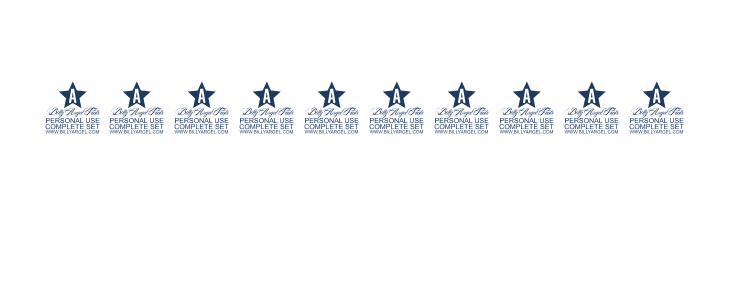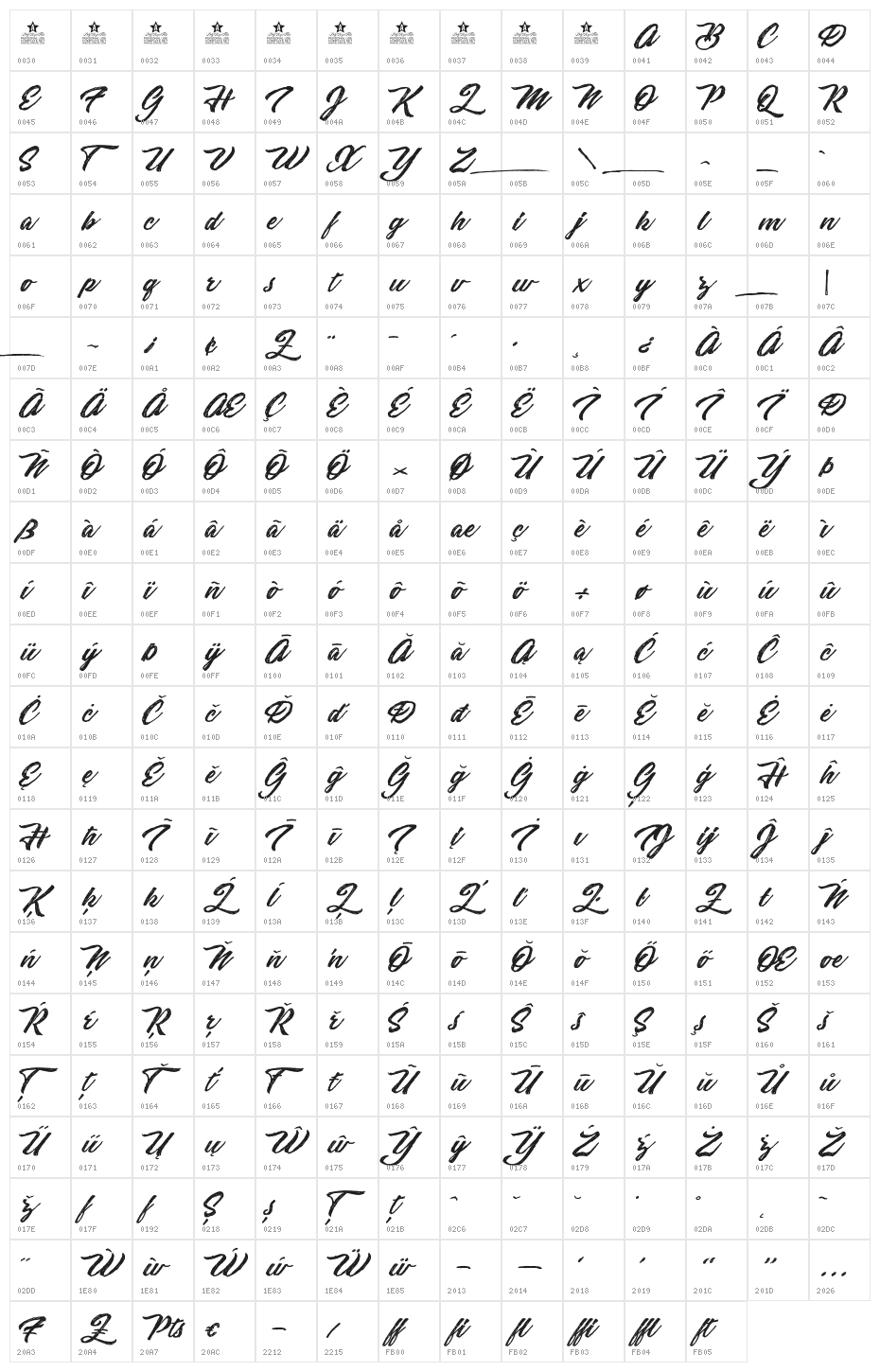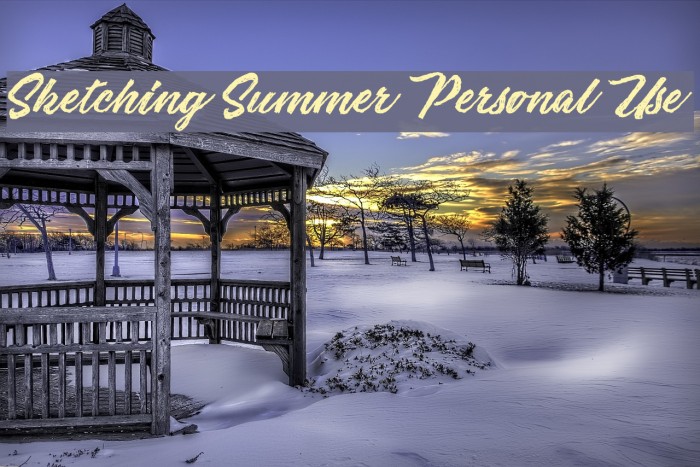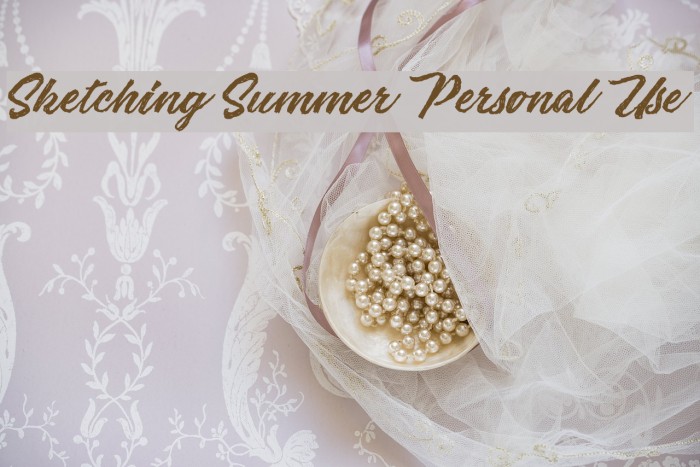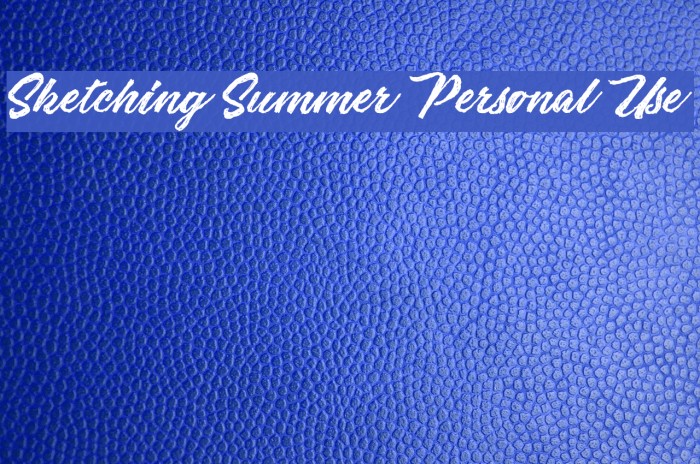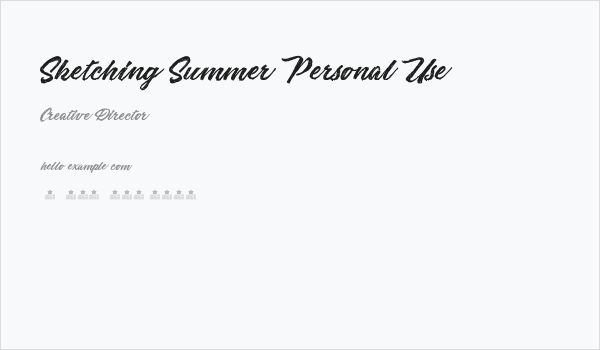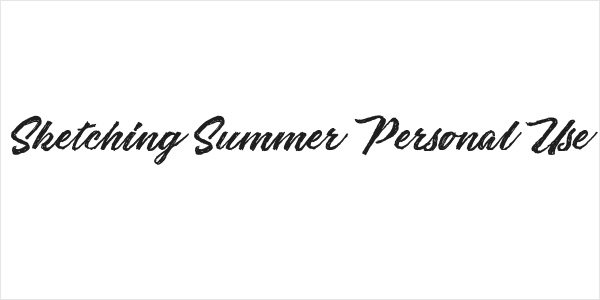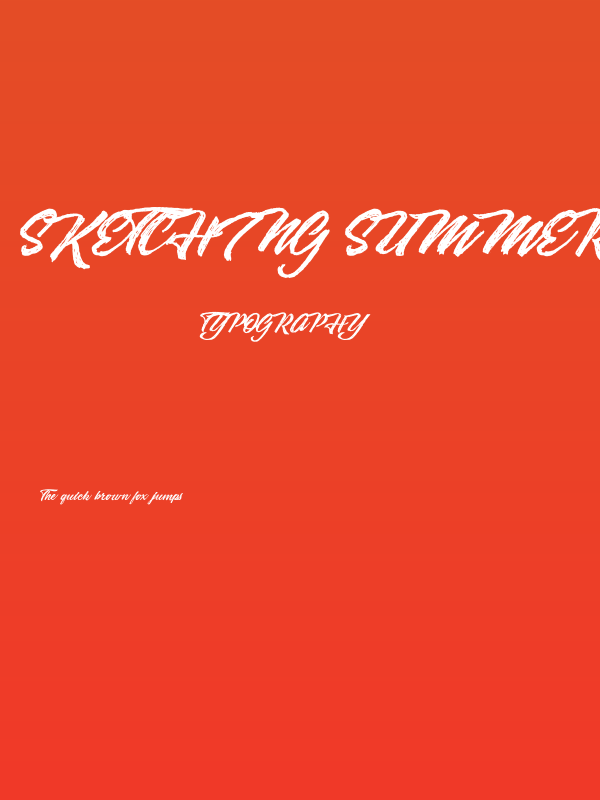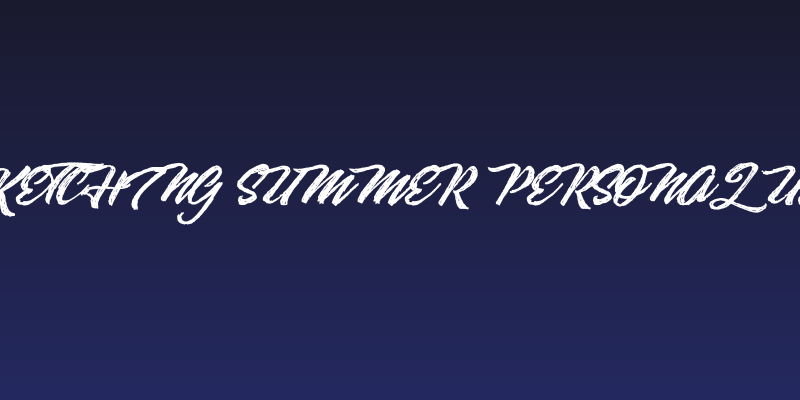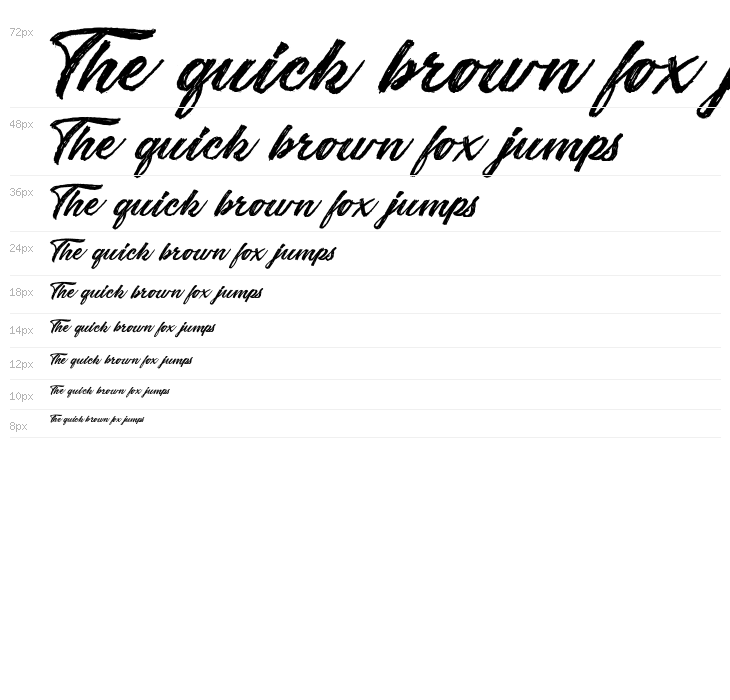
Sketching Summer Personal Use Font
Sketching Summer Personal Use Description
This font features a dynamic and expressive script style, characterized by its bold and fluid strokes. The letters are interconnected, creating a sense of movement and flow. The uppercase letters are particularly striking, with dramatic flourishes and a slightly slanted orientation. The lowercase letters maintain the same fluidity, with some variations in stroke thickness that add to the overall lively appearance. The numbers and special characters are consistent with the script style, offering a cohesive look across all characters. This font exudes a sense of creativity and spontaneity, making it ideal for projects that require a personal touch.